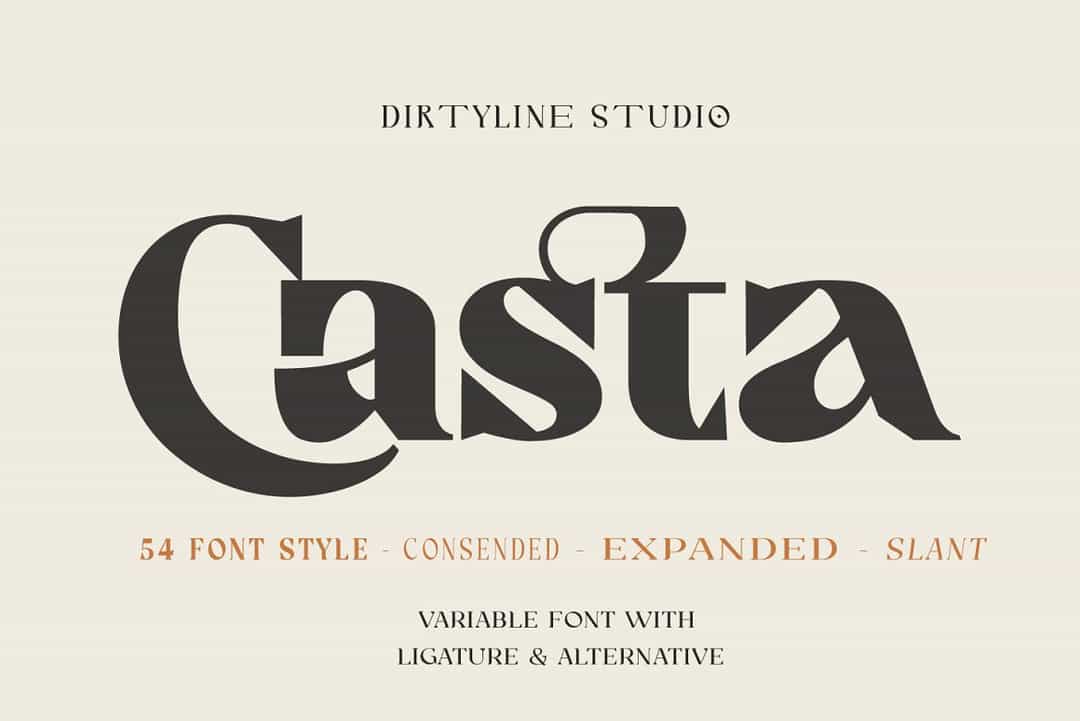
Casta Font, featuring modern serif fonts with classic touches and pairing them with different fonts (crooked, irregular) has recently been made available as one of the easiest ways to discover different kinds of styles.